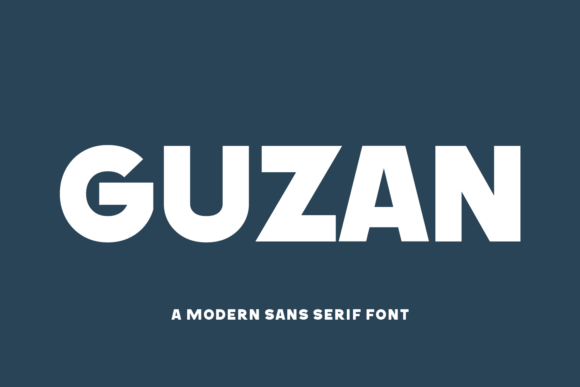
The Perfect Harmony of Form and Function: Guzan Font
As designers, we’ve all been there – staring at a blank canvas, trying to convey a message that’s both clear and captivating. The moment of truth arrives when we find the perfect font to set the tone for our project. And that’s where Guzan Font comes in – a modern, minimalist sans-serif font that effortlessly strikes a balance between elegance and versatility.
Whether you’re working on a branding project, an editorial design, or a digital application, Guzan Font is the perfect companion. Its clean lines and balanced proportions make it an ideal choice for conveying sophistication and clarity, adapting seamlessly to both bold headlines and subtle text. With Guzan Font, designers can breathe a sigh of relief, knowing they’ve found a versatile tool that will elevate their work to the next level.
Guzan Font Key Features
- Font Family: Guzan Font is a sans-serif typeface designed for digital use. It is available in multiple font styles, including Regular, Bold, Italic, and Bold Italic.
- Character Set: The font includes a comprehensive character set, covering Latin, Cyrillic, and Greek alphabets, as well as a range of punctuation marks and symbols.
- Resolution: Guzan Font is designed for high-resolution displays, making it ideal for use in digital applications, including web design, mobile apps, and print materials.
- Unique Characteristics: Guzan Font features a clean, modern design with a subtle rounded edge, making it suitable for a wide range of applications, from corporate branding to editorial content.
Guzan Font Review
Guzan Font is an interesting sans-serif font that I got to work with recently. Here are some of my honest thoughts about it.
- The Guzan Font has a clean and modern aesthetic that can be used for a variety of design projects.
- It has a wide range of weights and styles, making it suitable for both body text and headings.
- The font is highly legible, even at smaller font sizes, which is a must for any font.
- The Guzan Font can feel a bit generic at times, lacking the uniqueness and character that some other fonts possess.
- The font’s x-height can be a bit inconsistent across different weights, which may affect its overall readability.
- There is limited support for languages that require complex typography, such as Arabic or Chinese.
Overall, Guzan Font is a solid choice for any design project, but it may not stand out from the crowd. It’s a good option for those who want a clean and modern font without breaking the bank. However, if you’re looking for something more unique and feature-rich, you may want to consider other options.
Getting the Most Out of Guzan Font
Here are some tips to help you get the most out of Guzan Font:
- Use Guzan Font for titles and headings to add a touch of elegance.
- Pair Guzan Font with other fonts to create a unique and visually appealing typography.